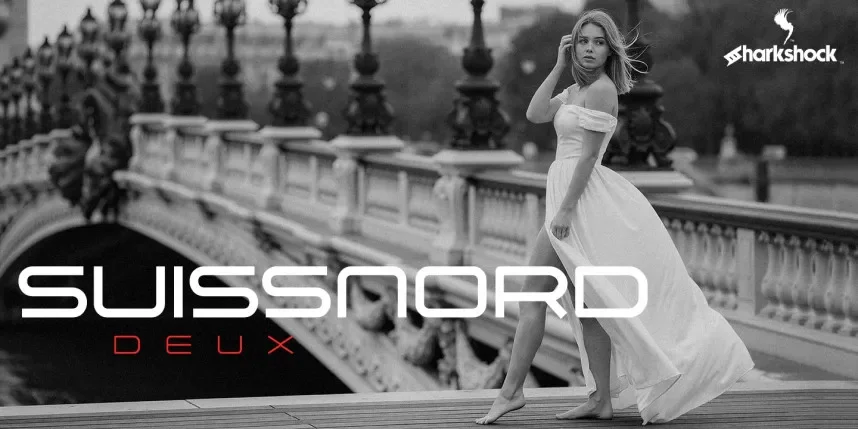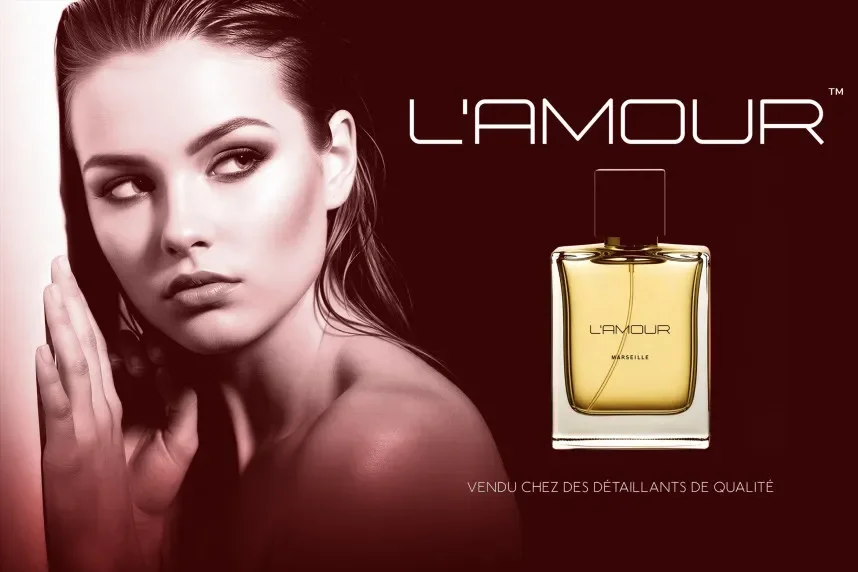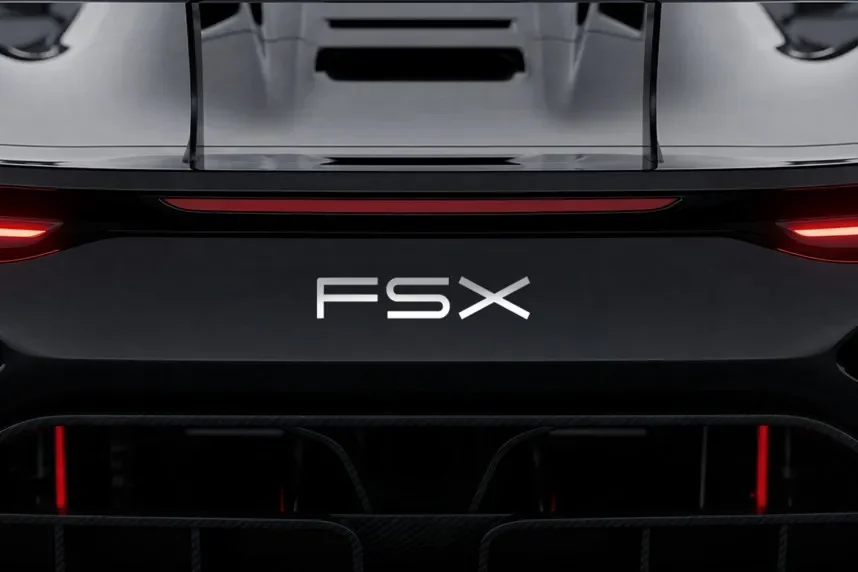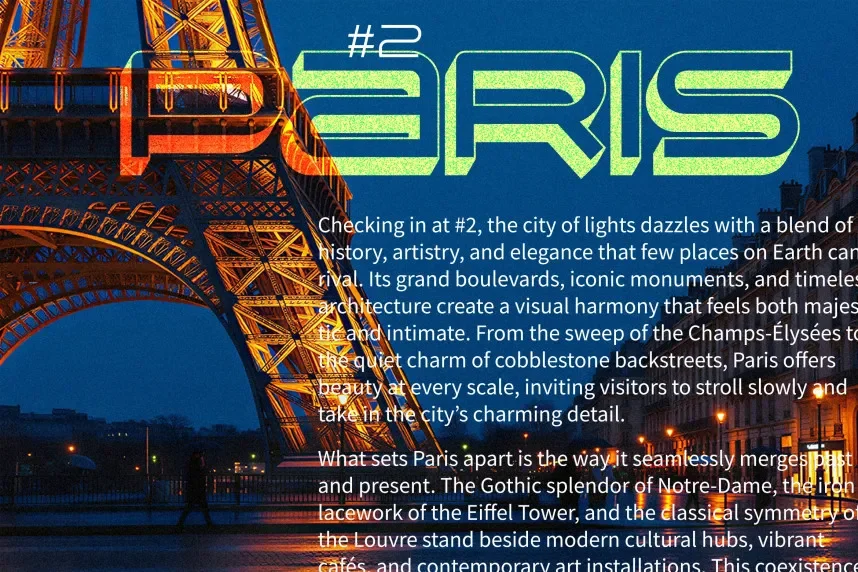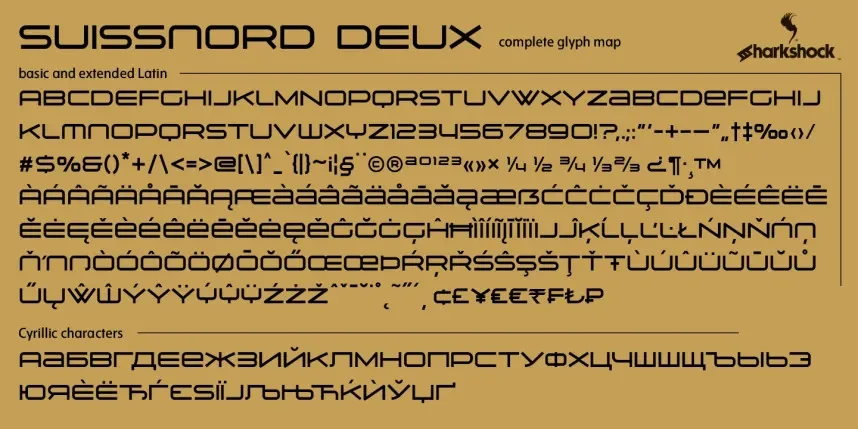
Suissnord Deux Font is a geometric sans-serif typeface with structured proportions and controlled stroke weight. The letterforms rely on straight lines, rounded curves, and uniform spacing, which improves clarity in both headings and body text. Its low contrast and balanced x-height support screen readability and print stability.